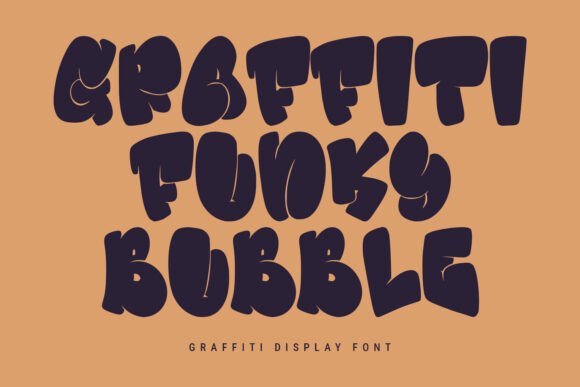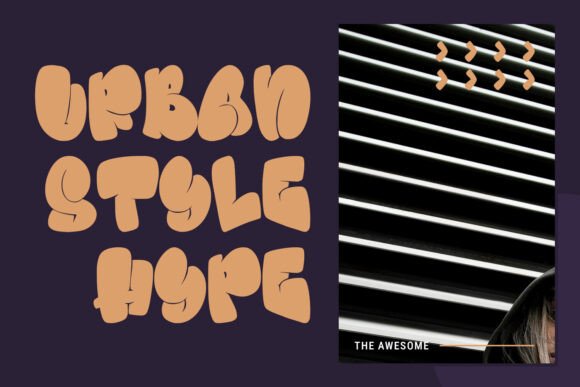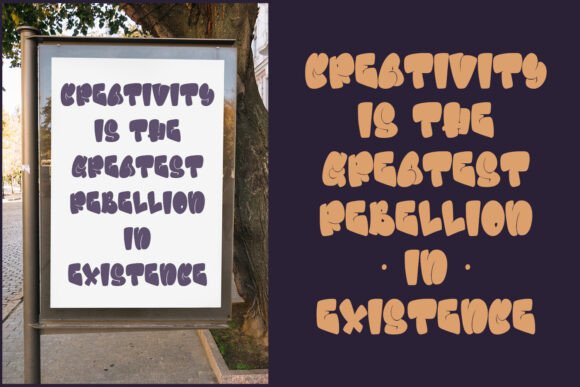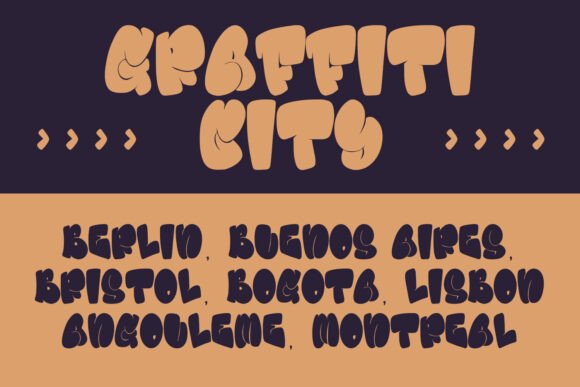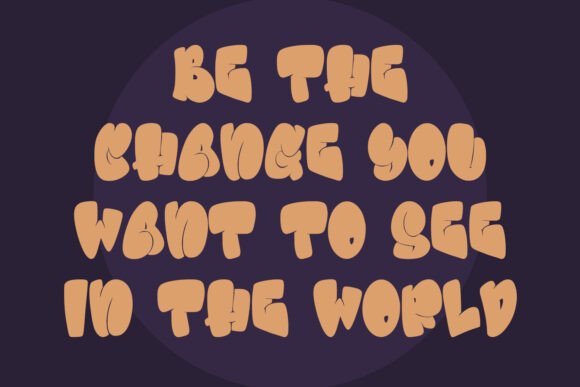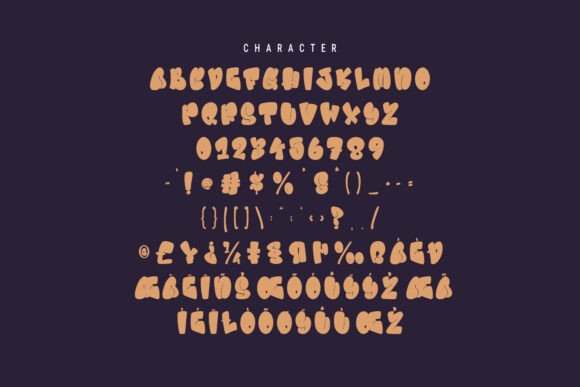
The Quest for Authenticity: Discovering Gobsun Font
I still remember the design project that led me to Gobsun Font. I was working on a branding campaign for a local artisan market, and I needed a font that could capture the essence of handmade crafts. I spent hours scouring the internet for the perfect font, but nothing seemed quite right. That was until I stumbled upon Gobsun Graffiti Display Font. Its unique, brush-handcrafted feel instantly resonated with my design vision.
An Honest Review of Gobsun Font
- ✨ Authentic brush-handcrafted feel that adds a personal touch to any design
- ✅ Highly versatile and adaptable for various design projects, from logos to website headers
- 💥 Unique character set with OpenType features and stylistic alternates for creative experimentation
- 🎨 Beautifully crafted to evoke an emotional response and create a lasting impression
While Gobsun Font is an excellent choice for many design projects, there are a few things to keep in mind:
- ⚠️ Some characters may require manual kerning for optimal spacing
- 🤔 Limited suitability for body text due to its display-focused design
The Designer Inspiration Behind Gobsun Font
Gobsun Font was crafted with the intention of capturing the raw energy of street art and graffiti. Its creator drew inspiration from the urban landscape, combining traditional brushwork with modern typography techniques. The result is a font that exudes authenticity and creative freedom.
Q: What type of projects is Gobsun Font best suited for?
A: Gobsun Font is perfect for signature, stationery, logo, typography quotes, magazine or book covers, website headers, flyers, clothing, branding, packaging design, and more.
Q: Is Gobsun Font suitable for body text?
A: Due to its display-focused design, Gobsun Font is not recommended for body text. Instead, use it for headlines, titles, or other attention-grabbing elements.